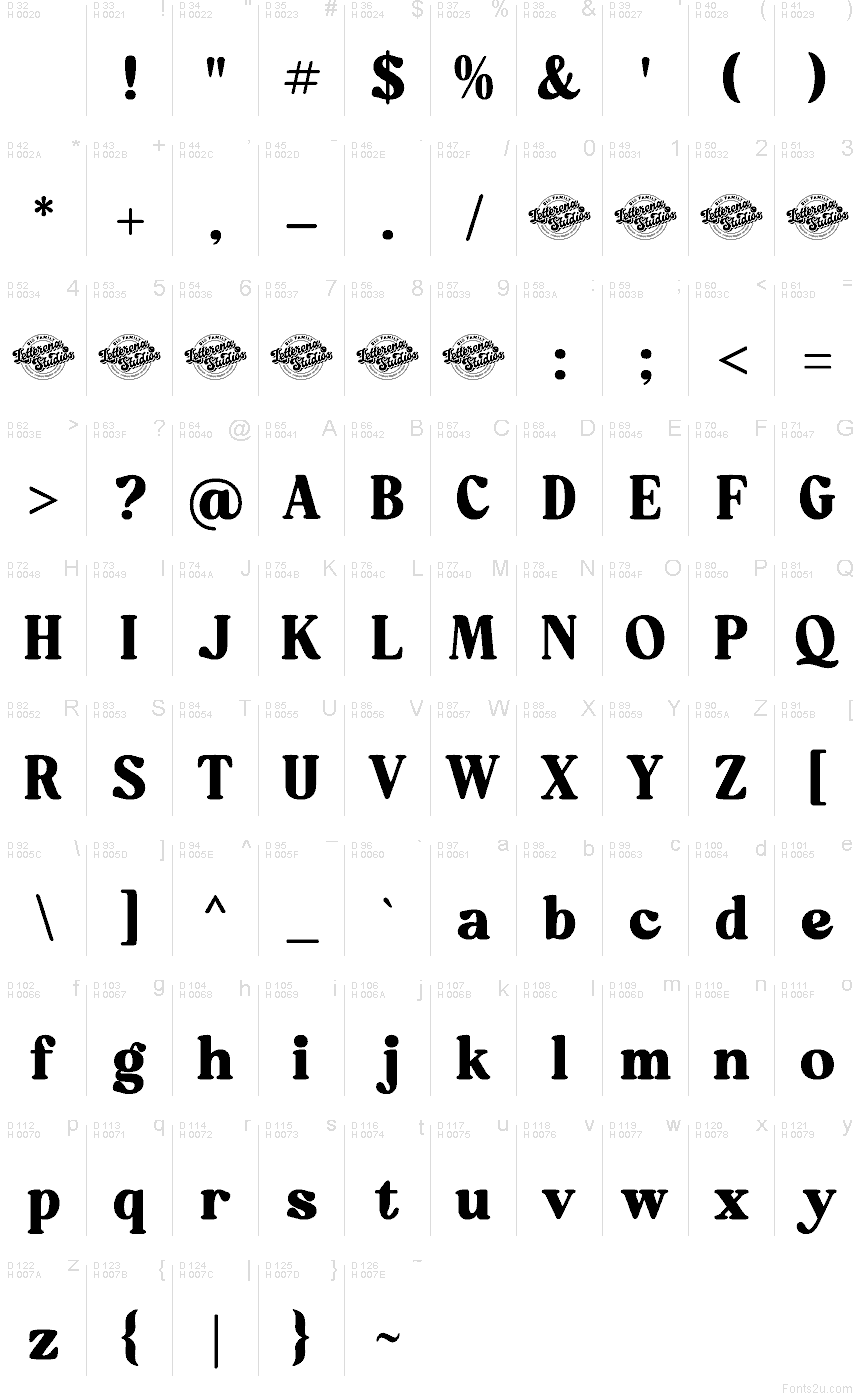
Mistys Relrica DEMO VERSION
Mistys Relrica font by Letterena Studios is a free decorative serif typeface with a wonderfully inky, almost puffed look. The strokes feel thick and cushioned, with rounded edges and generous curves that give each word a friendly, vintage weight on the page. It has the charm of old book covers and shop signs, but with a smoother, more contemporary polish that keeps it from feeling dusty or stiff.
Using Mistys Relrica, headlines and logos instantly gain a cozy, storybook presence that still reads clearly at a distance. This free font works beautifully for branding, cafe menus, posters, editorial titles, product packaging, and social media graphics where you want warmth and character. Try pairing Mistys Relrica for titles with a simple, clean sans serif for body copy to keep your layouts balanced and easy to read.